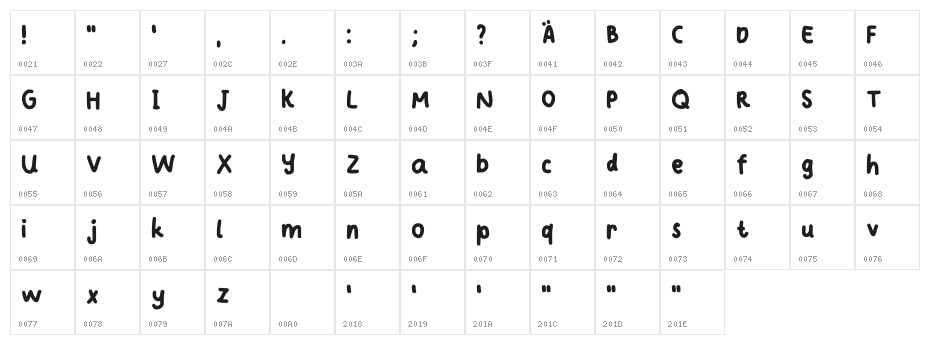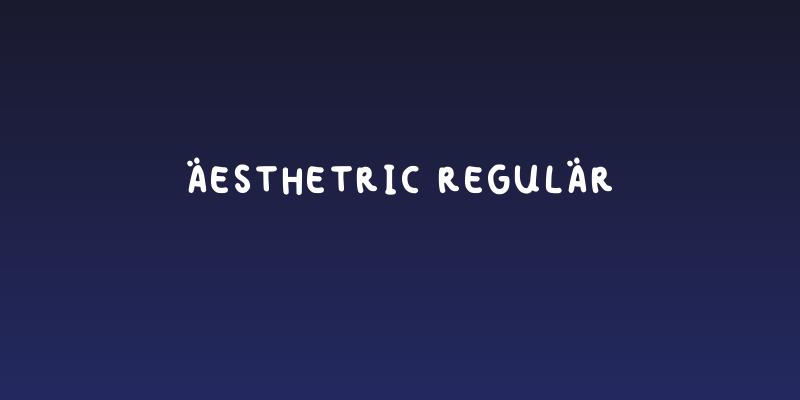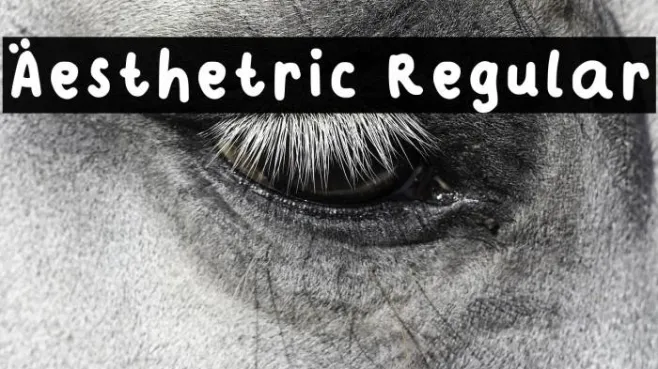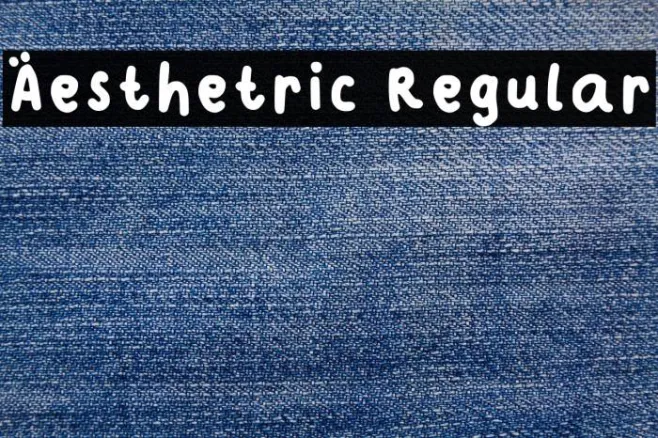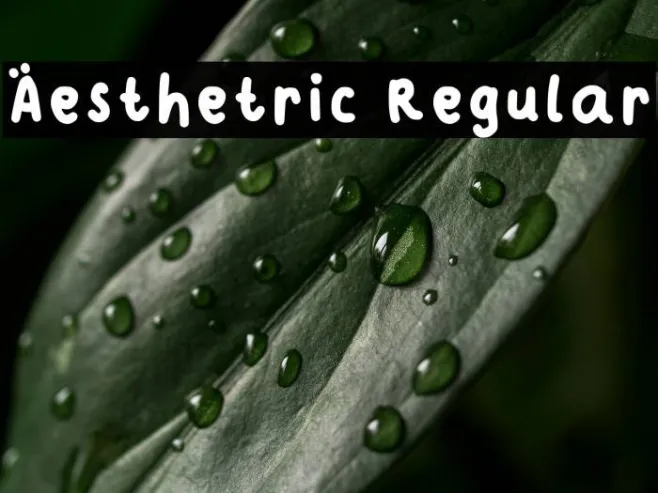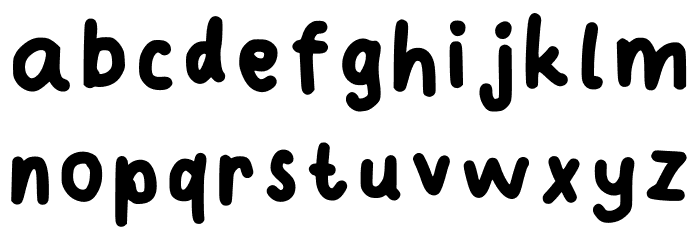
Aesthetric Regular Font
Aesthetric Regular Description
This font features a playful and rounded design, characterized by its bold and smooth strokes. The letters have a hand-drawn appearance, giving them a friendly and approachable feel. The uppercase letters are slightly larger and more prominent, while the lowercase letters maintain a consistent flow. The numbers and special characters follow the same rounded style, ensuring uniformity across all characters. This font is ideal for projects that require a casual and informal touch, such as children's books, greeting cards, or playful branding. Its unique style makes it stand out, while still being highly readable.
| Proposed Projects | Ideal for children's books, greeting cards, playful branding, and informal designs. |